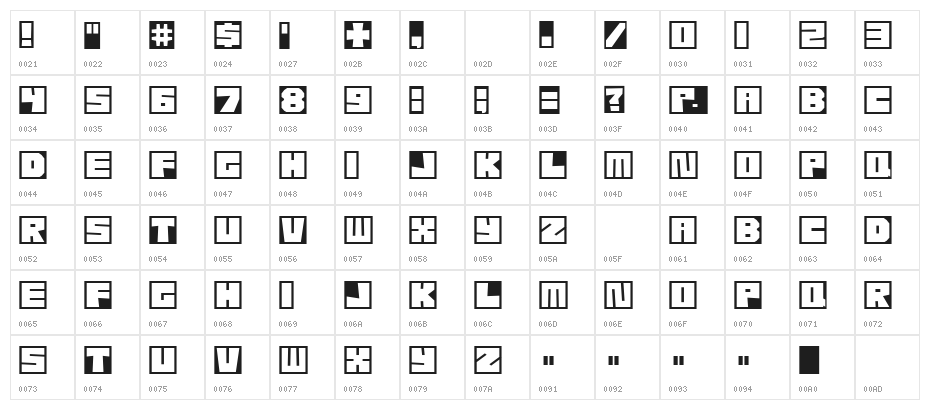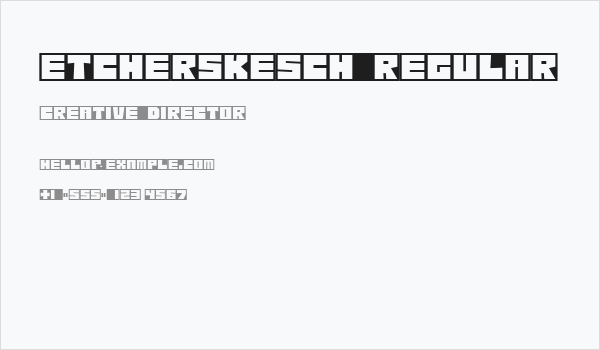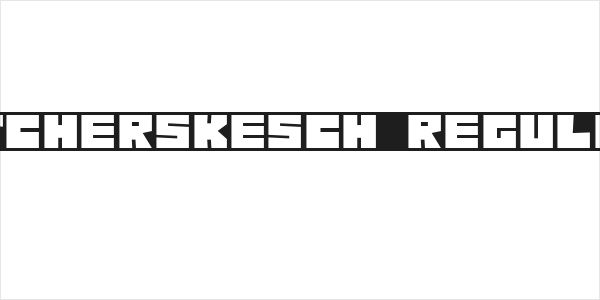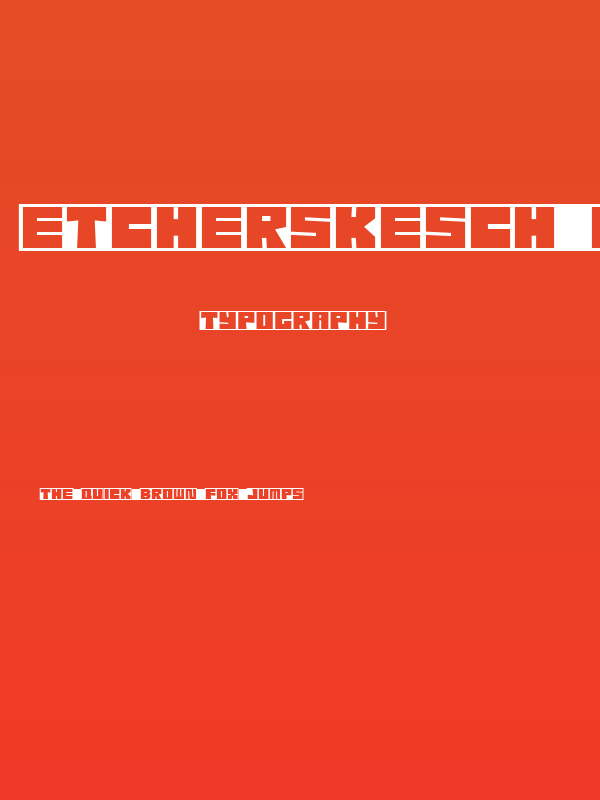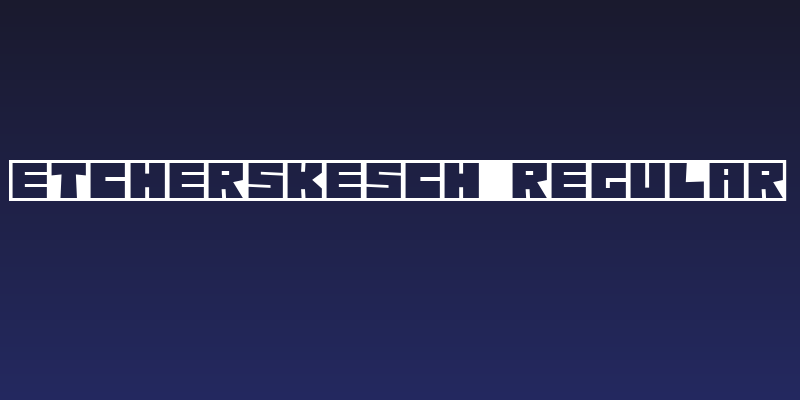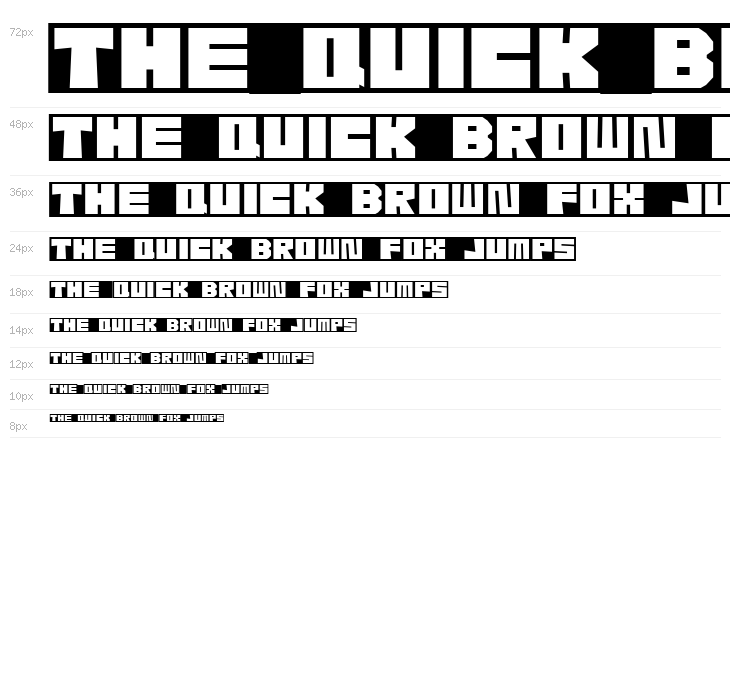
EtcherSkesch Regular Font
EtcherSkesch Regular Description
This font features a bold and geometric design, characterized by its blocky and angular letterforms. Each character is constructed with sharp edges and a uniform thickness, creating a striking and modern appearance. The uppercase and lowercase letters maintain a consistent style, with minimal variation in stroke width, ensuring a cohesive look across all text. The numerals and special characters follow the same design principles, making them easily recognizable and visually appealing. This font's strong presence and unique style make it ideal for projects that require a bold statement.
| Proposed Projects | Ideal for posters, logos, headlines, and branding materials that require a strong visual impact. |